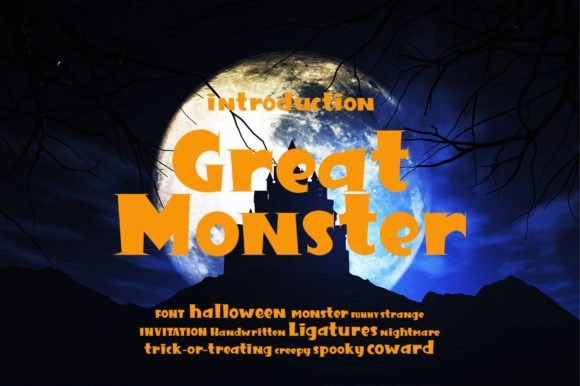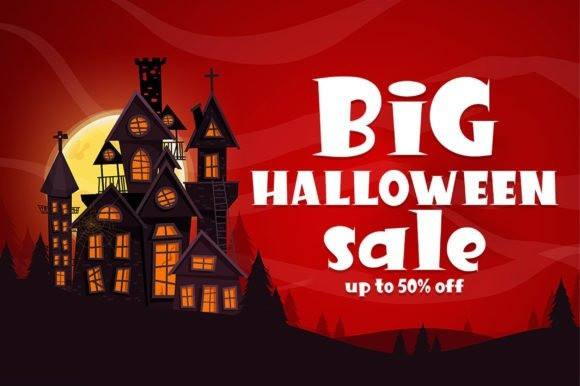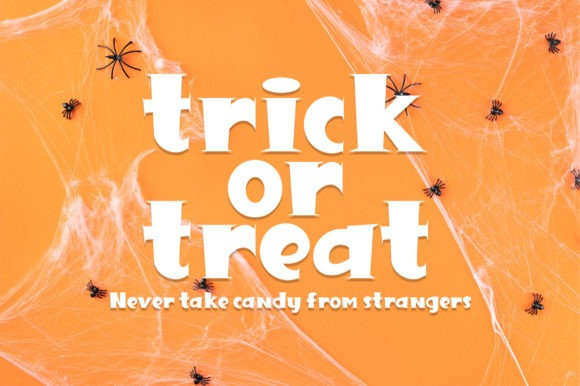
Great Monster Font
Great Monster is a cool, bold and funky display font. Add it to each of your Halloween designs and notice how it instantly comes to life. The only limit is your imagination!